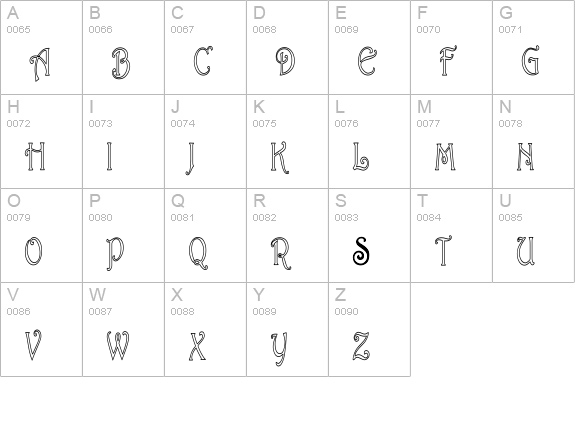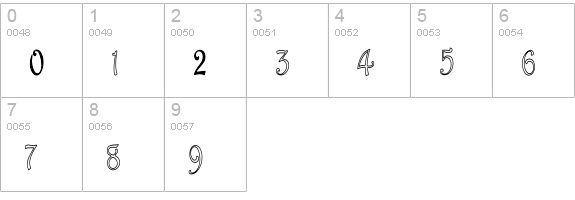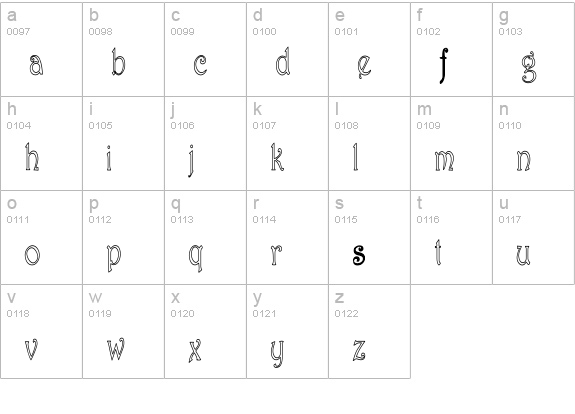
HarringtonHC Font Details
HarringtonHC font is a stunning and versatile typeface that combines elegance with a touch of vintage charm. Its beautifully crafted characters exude a classic appeal, making it the perfect choice for a wide range of design projects. With its unique and graceful letterforms, HarringtonHC font adds a touch of sophistication to any design. Whether you are designing a wedding invitation, a logo, or a book cover, this font is sure to make a lasting impression. What sets HarringtonHC font apart is not just its stunning aesthetics, but also the fact that it is free. Yes, you read that right! This amazing font is freely available to download at FontsMarket.com. This means that you can enjoy the beauty and versatility of HarringtonHC font without having to spend a dime. So why wait? Head over to FontsMarket.com and download HarringtonHC font today. Whether you are a professional designer or a hobbyist, this font is a valuable addition to your collection. Its timeless appeal and free availability make it a must-have for anyone looking to create stunning and memorable designs. Don't miss out on this fantastic opportunity to enhance your creative projects with the elegance of HarringtonHC font.